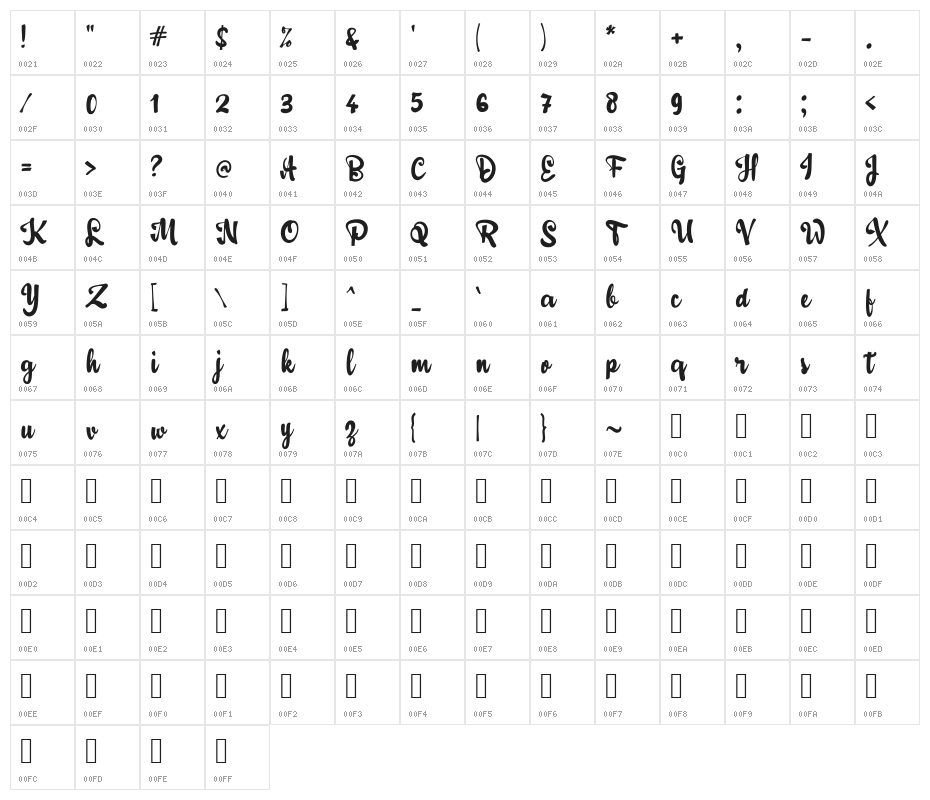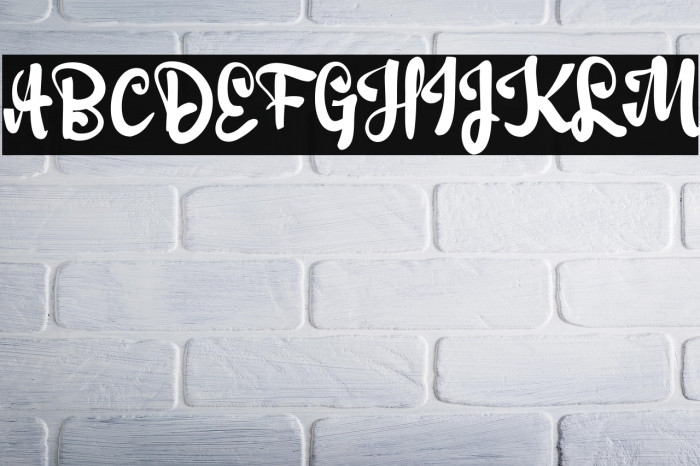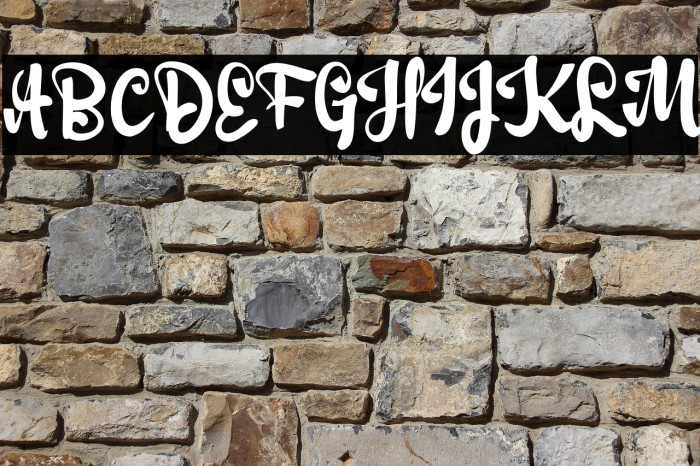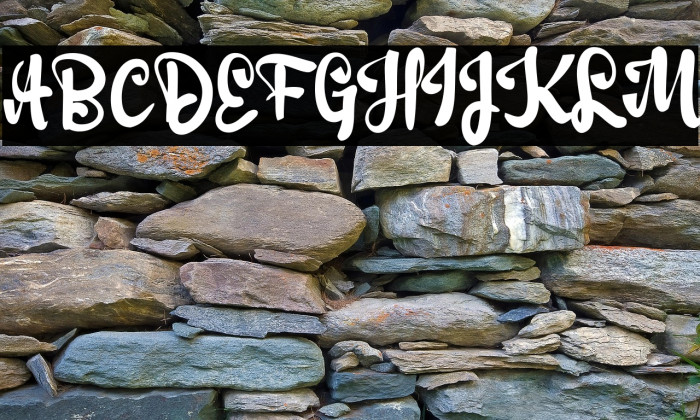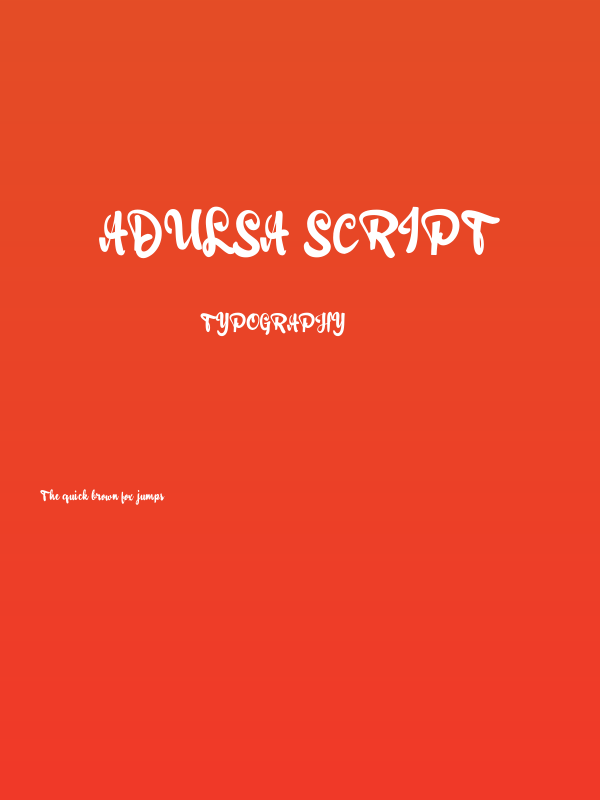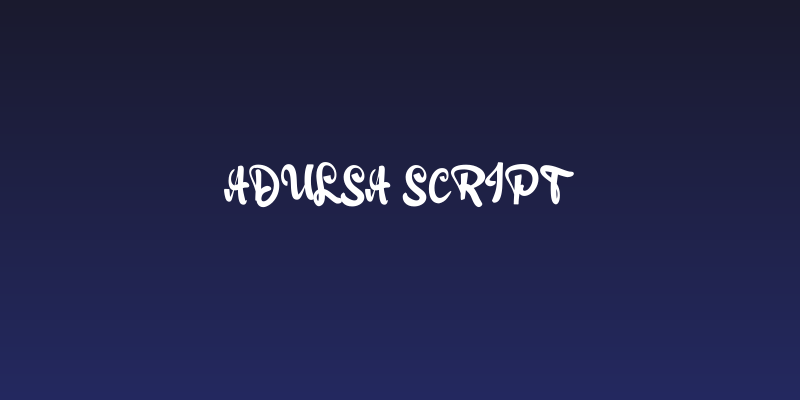
Adulsa Script Font
Adulsa Script Description
This font features a bold and expressive script style with a playful and dynamic appearance. The uppercase letters are characterized by their flowing, cursive forms, while the lowercase letters maintain a consistent, rounded shape that enhances readability. The numerals are bold and slightly condensed, matching the overall lively aesthetic. Special characters are integrated seamlessly, maintaining the font's cohesive look. The thick strokes and smooth curves give it a friendly and approachable feel, making it suitable for a variety of creative applications.
| Use Case | Logos, Headlines, Invitations |
| Proposed Projects | Ideal for branding, invitations, greeting cards, and playful headlines. |